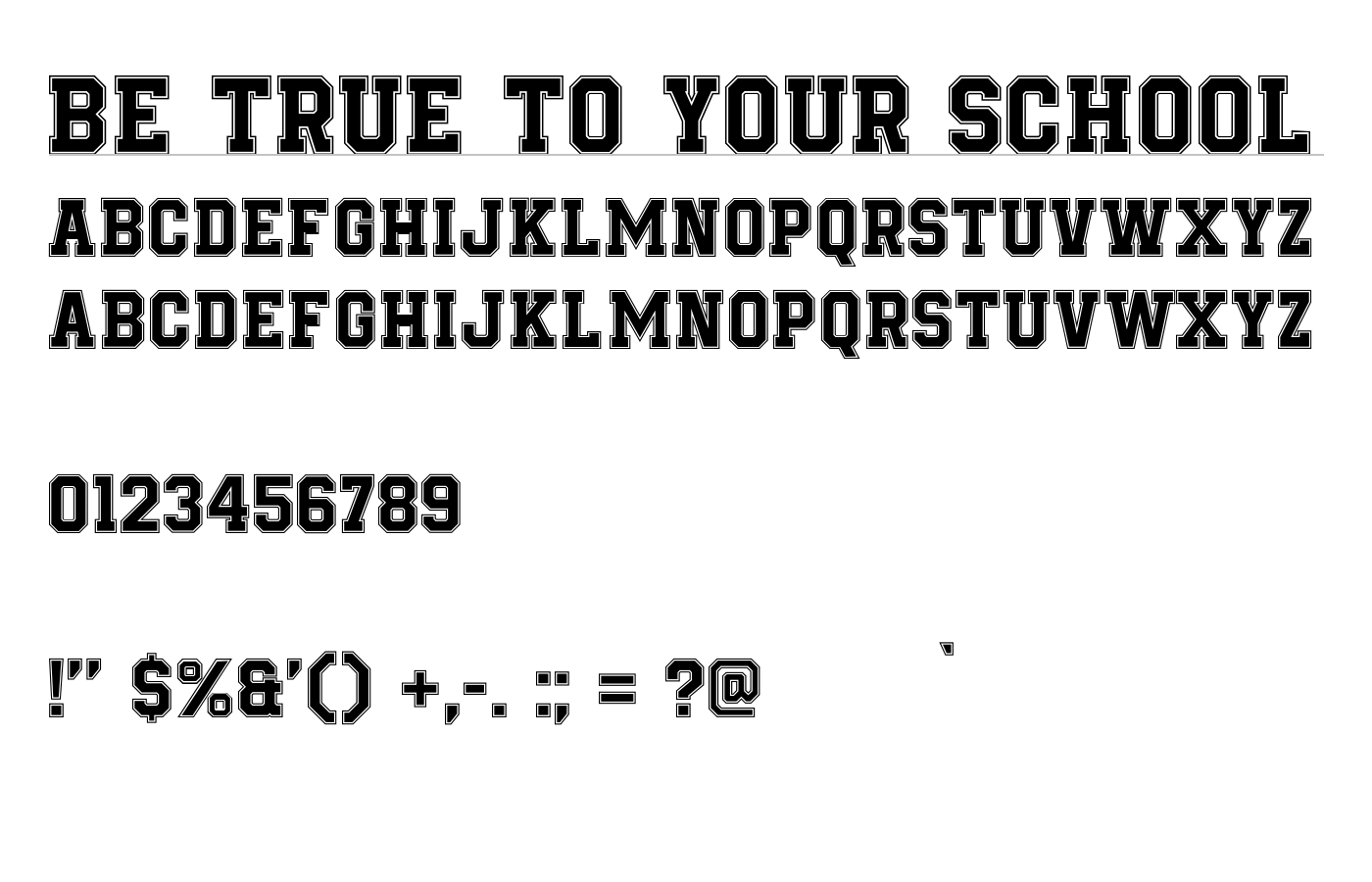
Be True To Your School is a bold, collegiate-style slab serif font with strong, blocky letterforms and solid outlining that evoke a vintage athletic or school spirit vibe. Its squared serifs and sturdy weight give it a confident and energetic personality, making it perfect for sports logos, team uniforms, and retro-themed branding where a classic, bold impact is desired. This font shines in headline or display uses, capturing a sense of tradition and team pride with clarity and style.
Be True To Your School Font